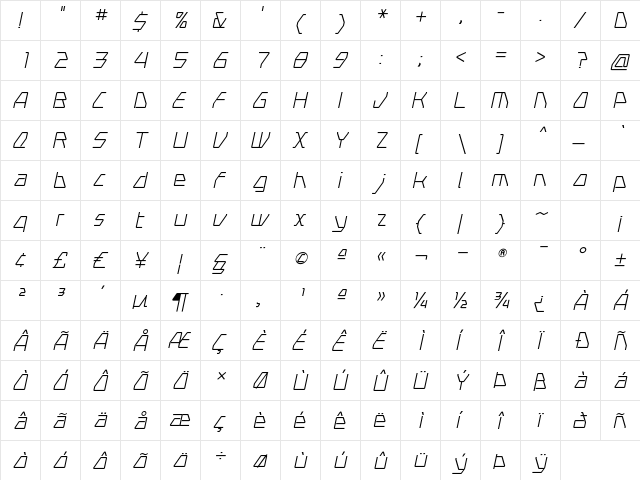
Swerve LightItalic
Design Context for Swerve Typeface
Swerve offers clean, dependable letterforms without strong stylistic allegiance, making it a practical choice for designers who need flexibility. The slanted form adds forward momentum and visual energy. Its slender proportions lend an understated elegance to any composition.
Pro Tip: Use Swerve for emphasis, pull quotes, and subheadings where its slanted energy can add rhythm to the layout.